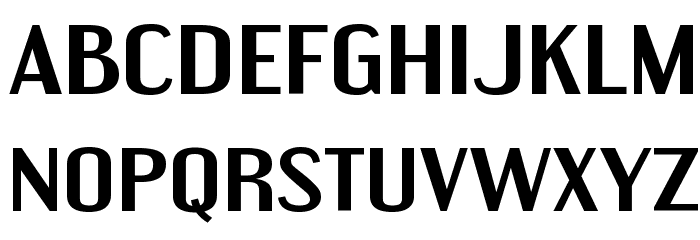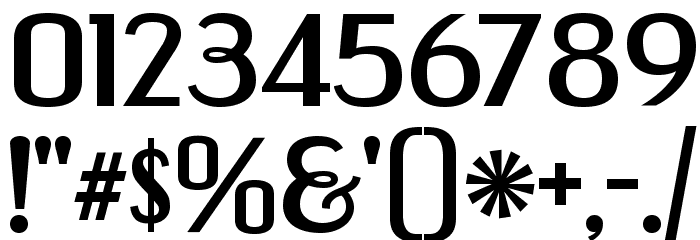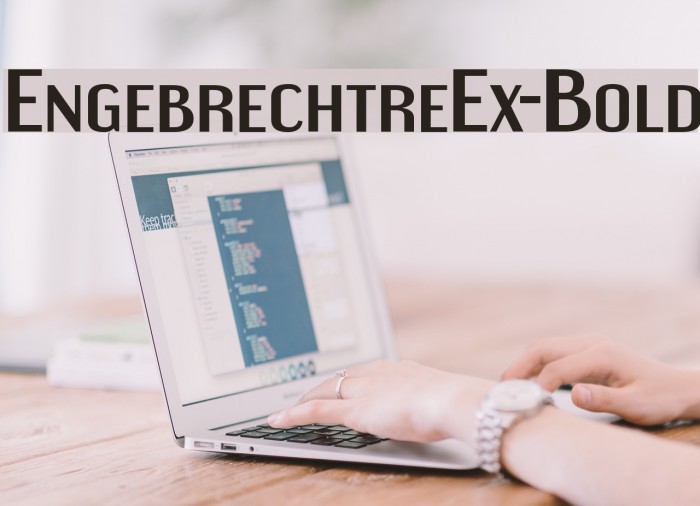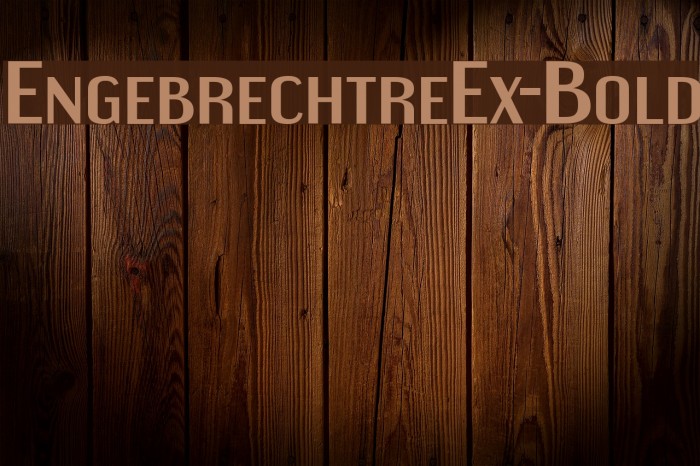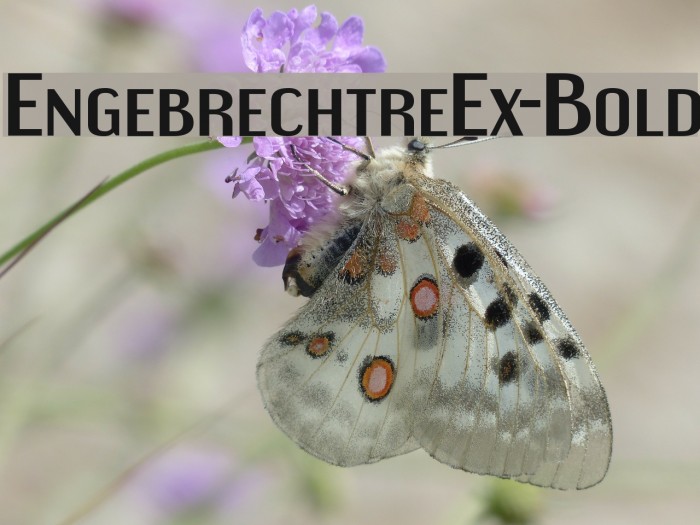
EngebrechtreEx-Bold Font
This font features a bold and assertive style with clean, straight lines and a modern aesthetic. The uppercase letters are tall and commanding, while the lowercase letters maintain a consistent height, providing a uniform appearance. The numerals are clear and easy to read, making them suitable for various applications. Special characters are distinct and well-defined, adding versatility to the font. The overall design is sleek and contemporary, making it ideal for projects that require a strong visual impact.
A bold, modern font with clean lines and a strong presence.
- Proposed Projects: Ideal for branding, advertising, headlines, and any project that requires a bold statement.
- Use Case: Headlines, Logos, Branding